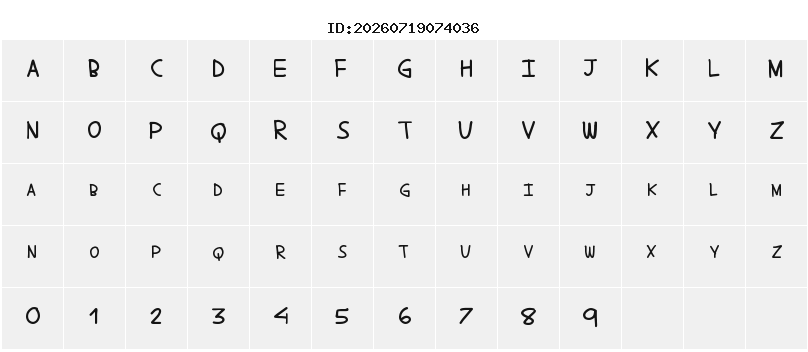
• Font Name: ComicTans
• Designer: Xerographer Fonts Max Infeld
• Description: Made at Xerographer Studios in Ojai,CA
ComicTans.ttf is a modern, elegant sans-serif font designed for ultimate readability and visual harmony. Perfect for branding, headlines, web design, and print materials.